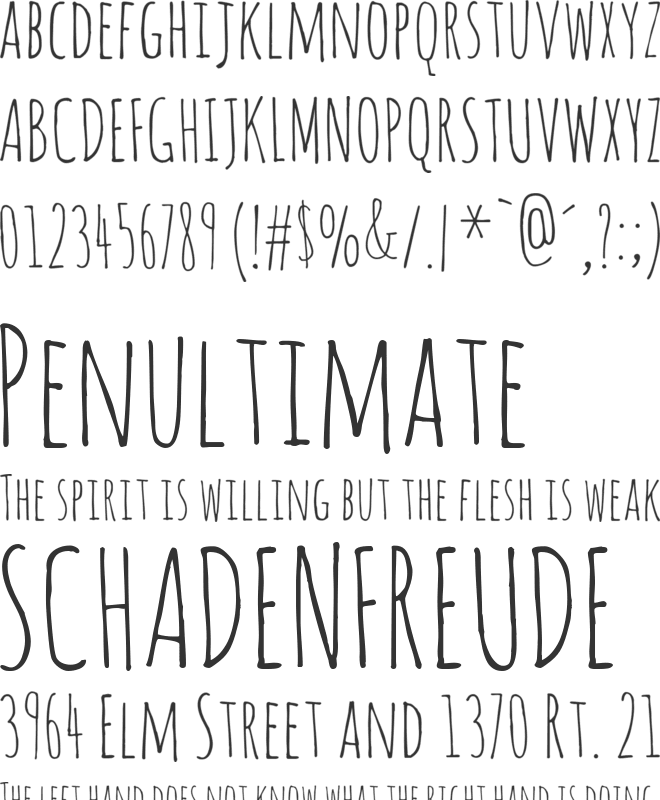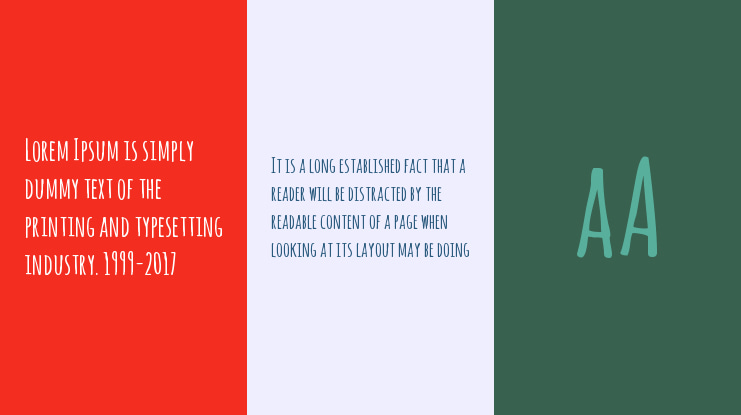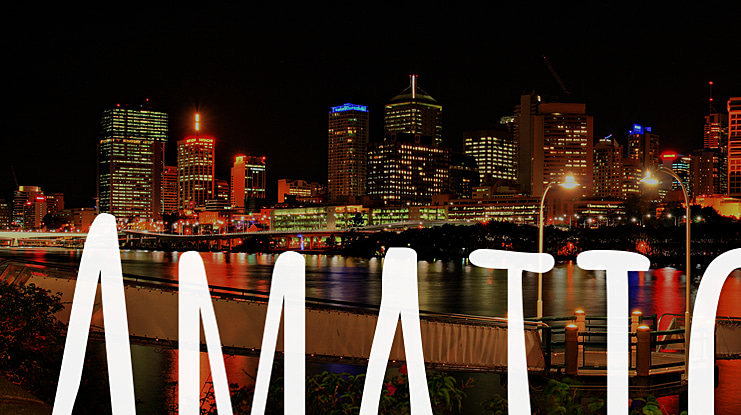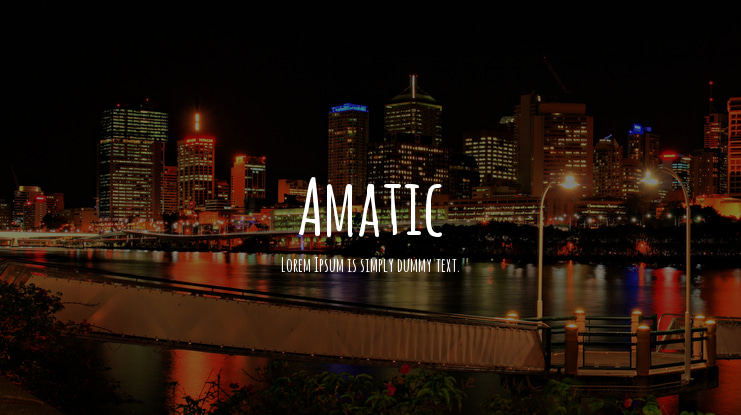
Amatic Font Family
Amatic is a simple but effective hand drawn webfont. Amatic can be used for titling and text. Amatic has been designed to be used freely across the internet by web browsers on desktop computers, laptops and mobile devices.